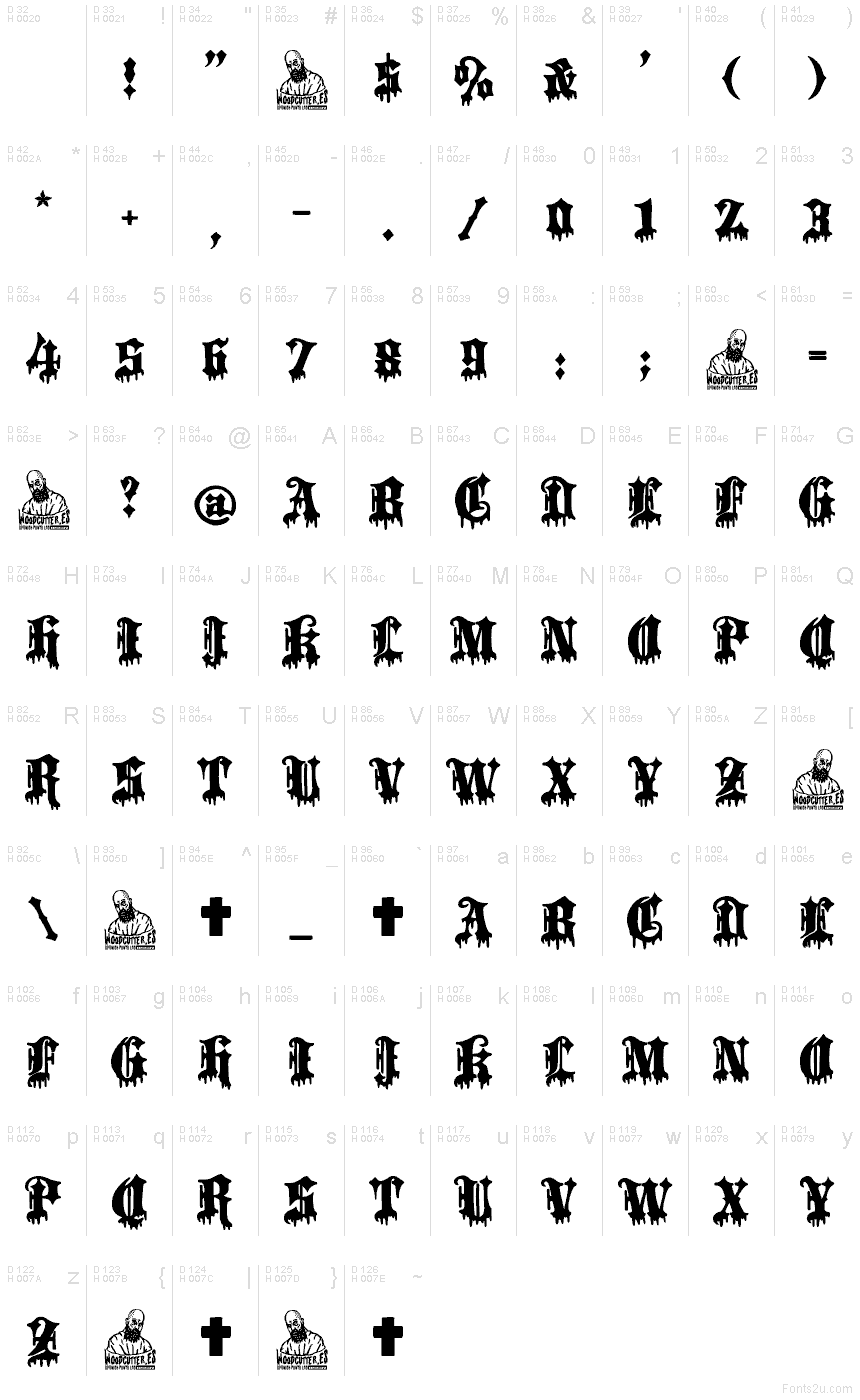
Crucifixion
Crucifixion font, designed by Woodcutter, is a gothic-inspired font with a bold weight and ornamental details. The distressed texture, dark presence, and dripping effect give it a spooky horror mood which is ideal when going for an uncomfortable feeling.